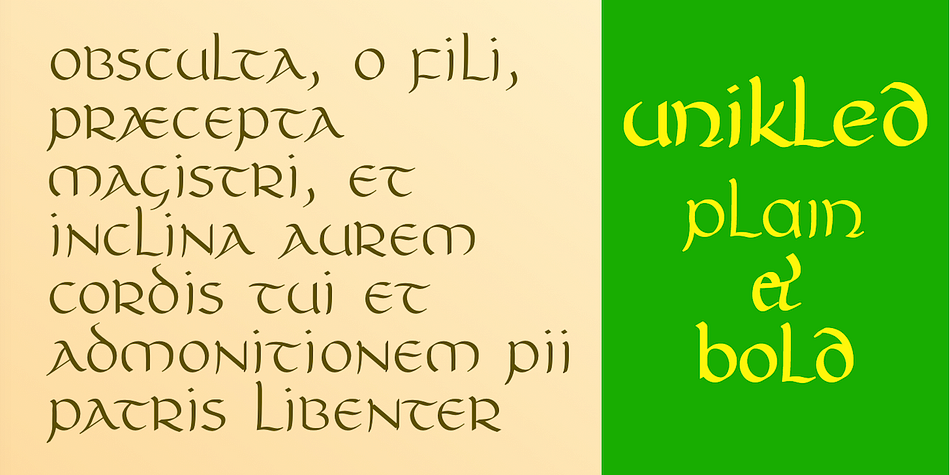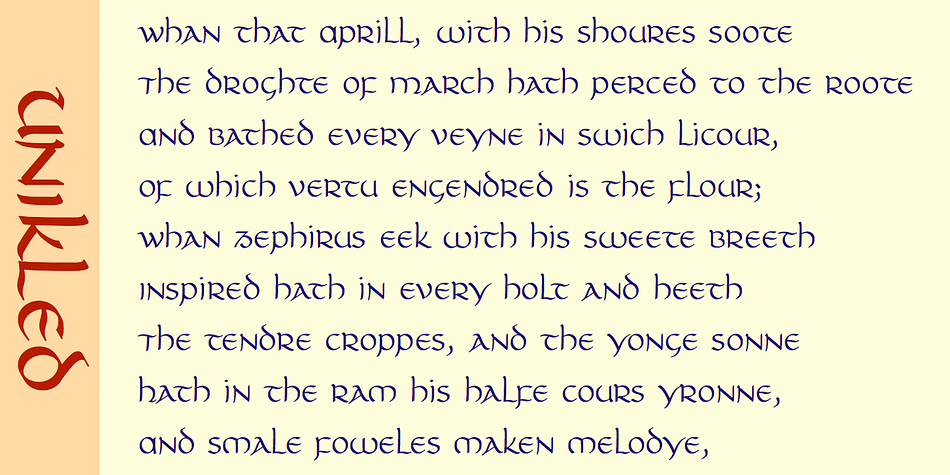
Unikled
Designed by Robert Schenk, Unikled is an exotic font family. This typeface has two styles and was published by Ingrimayne Type.
Unikled a decorative calligraphic family inspired by the uncial style. The upper and lower cases are largely different and can be treated as two separate alphabets. It is available in two weights, plain and bold.
Foundry Ingrimayne Type
Released 1992
Style Exotic
Designer Robert Schenk